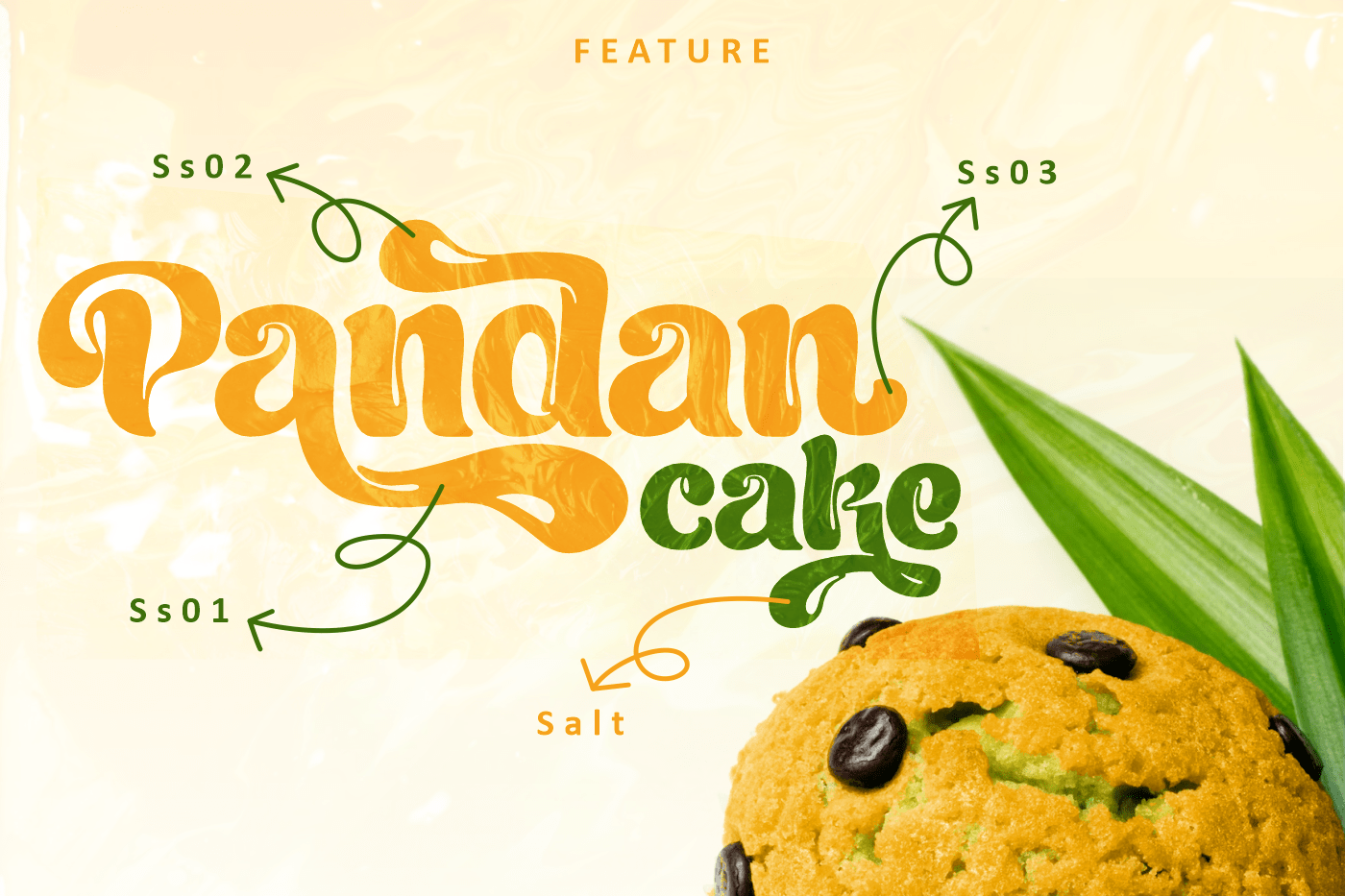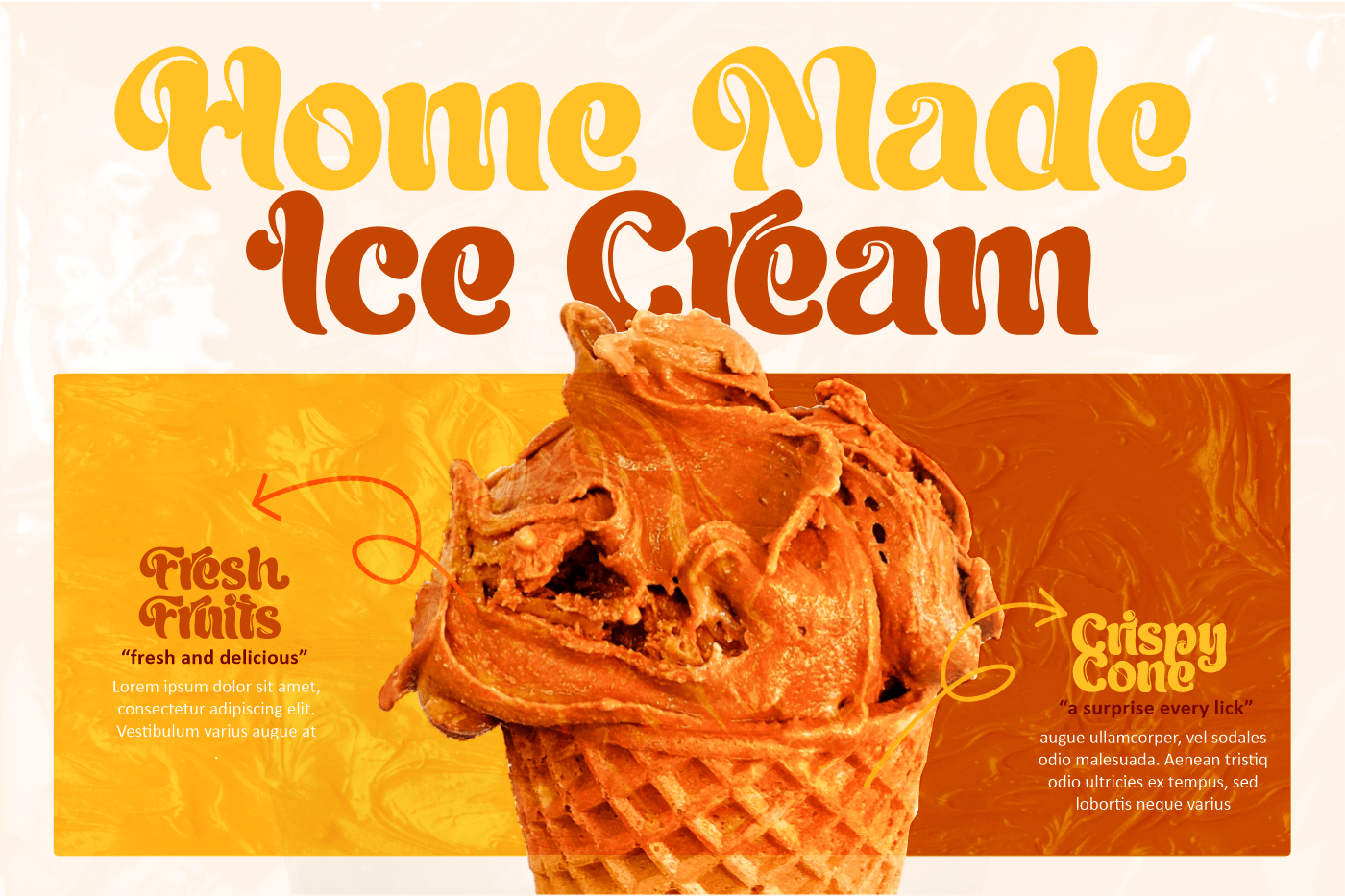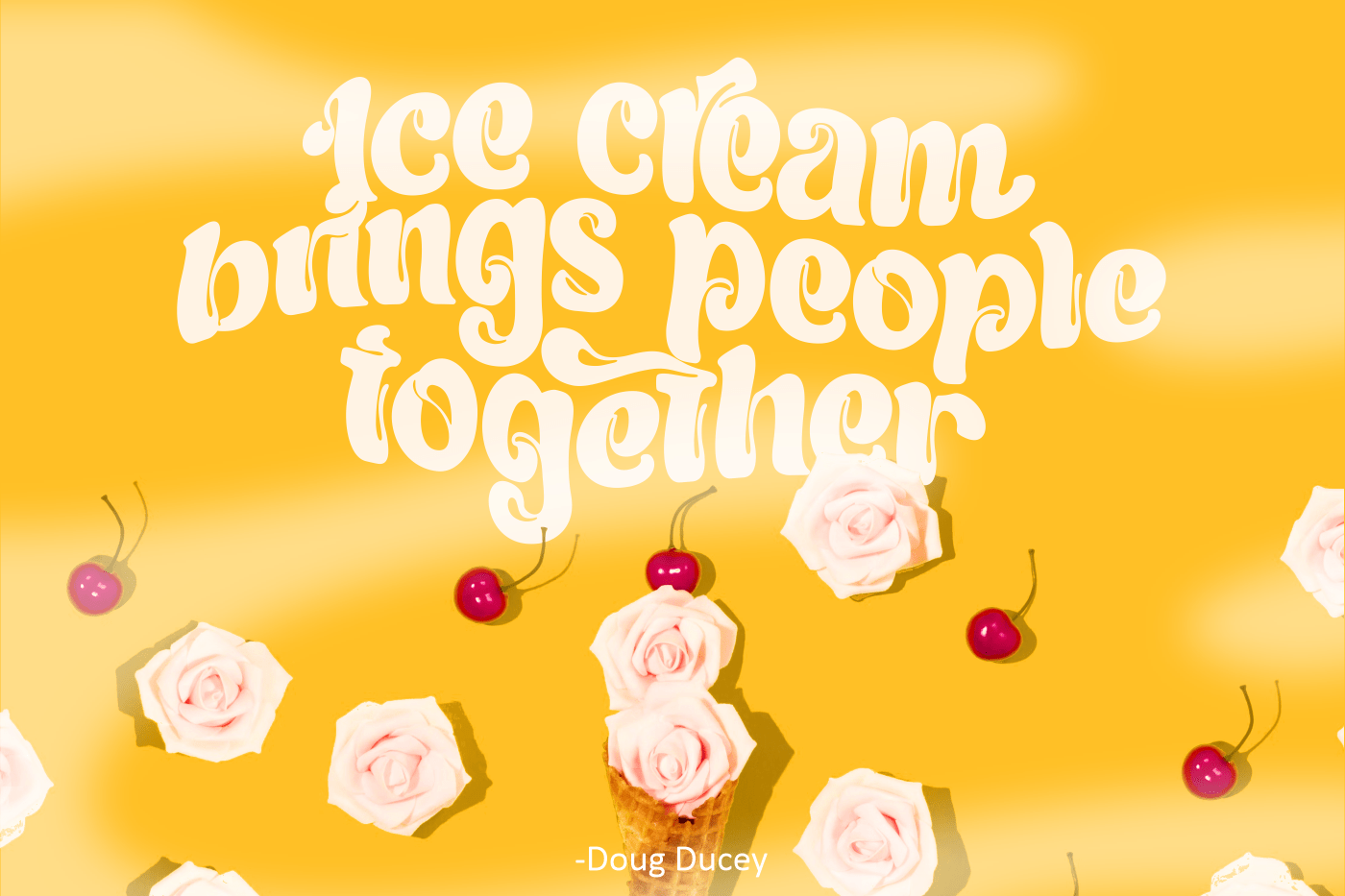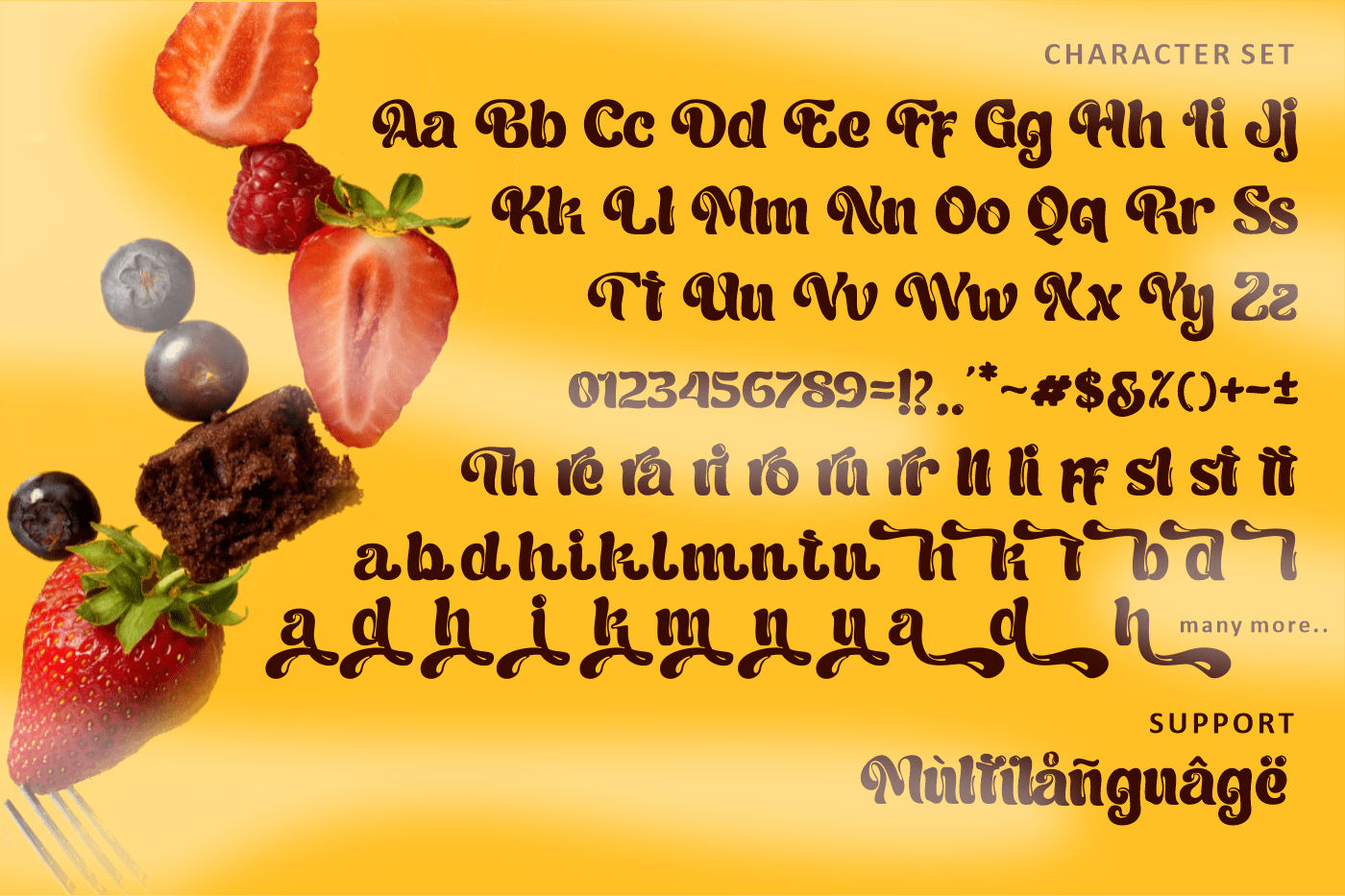
Cream Cheese Font
Cream Cheese Display Font is a bold display font that has smooth curves. Letters look like melted cream, supported by ligature, stylistic alt. diverse. A bold display font that looks like cream.